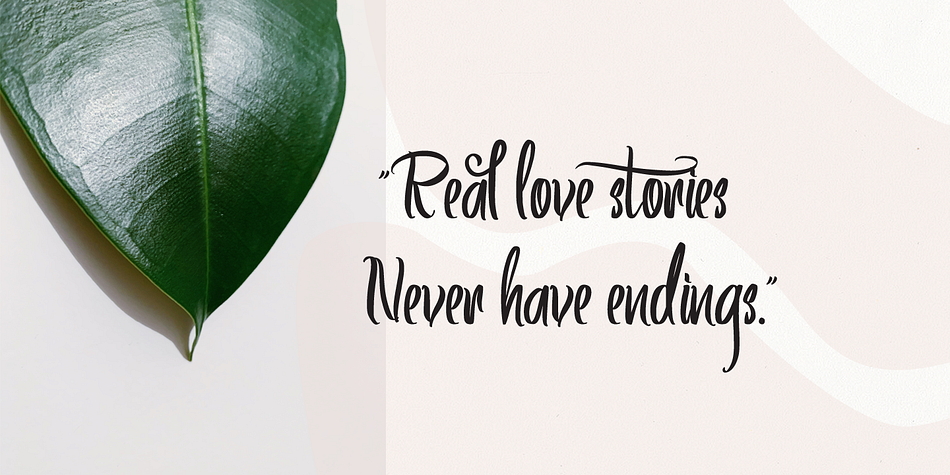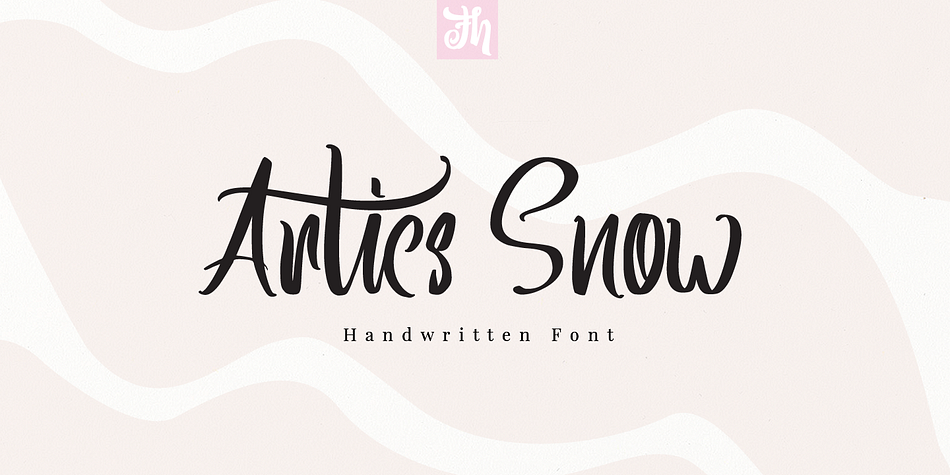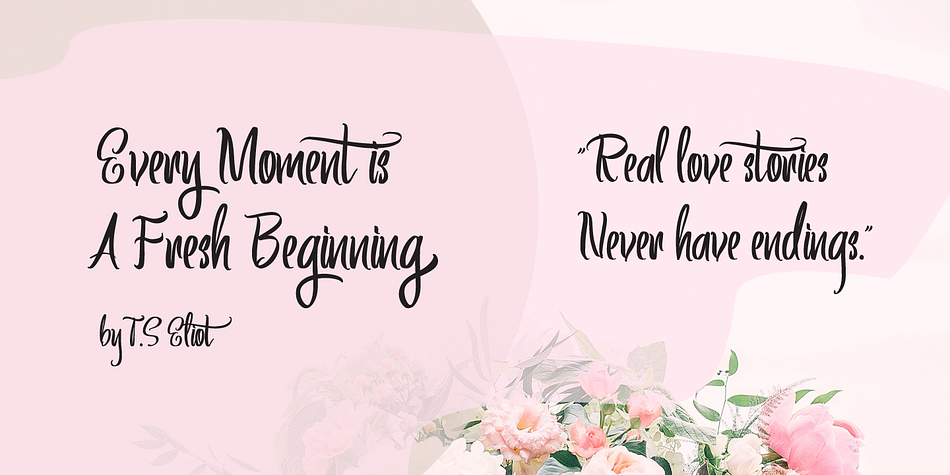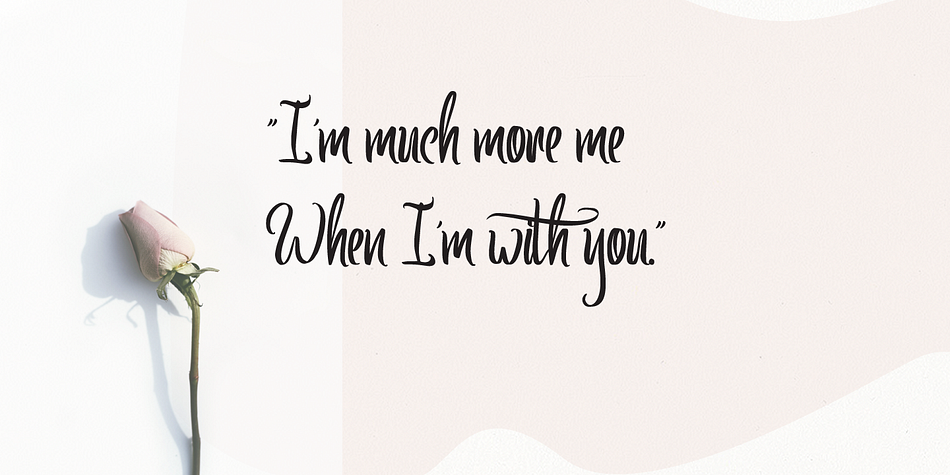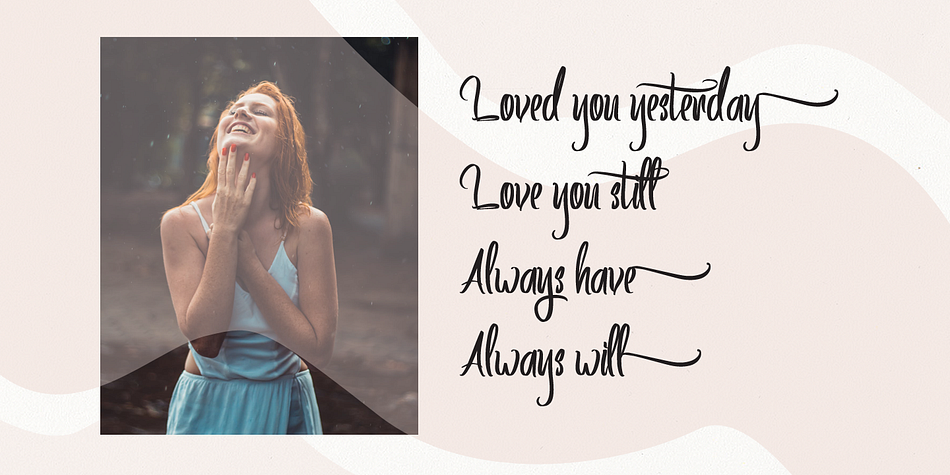
Designed by Ferry Hadriyan, Artics Snow is a script font published by feydesign.
Artics Snow - Handwritten Font
Artics Snow is Beauty Script Font with Handlettering Modern Calligraphy Style, with opentype feature include of the font. Suitable for design, element design, wedding, event, t-shirt, logo, badges, sticker, and awesome work, etc…
- All Standard Character, Symbol, Multilanguage, Ligature, Stylistic Set, and Swashes.
- Unique style fonts